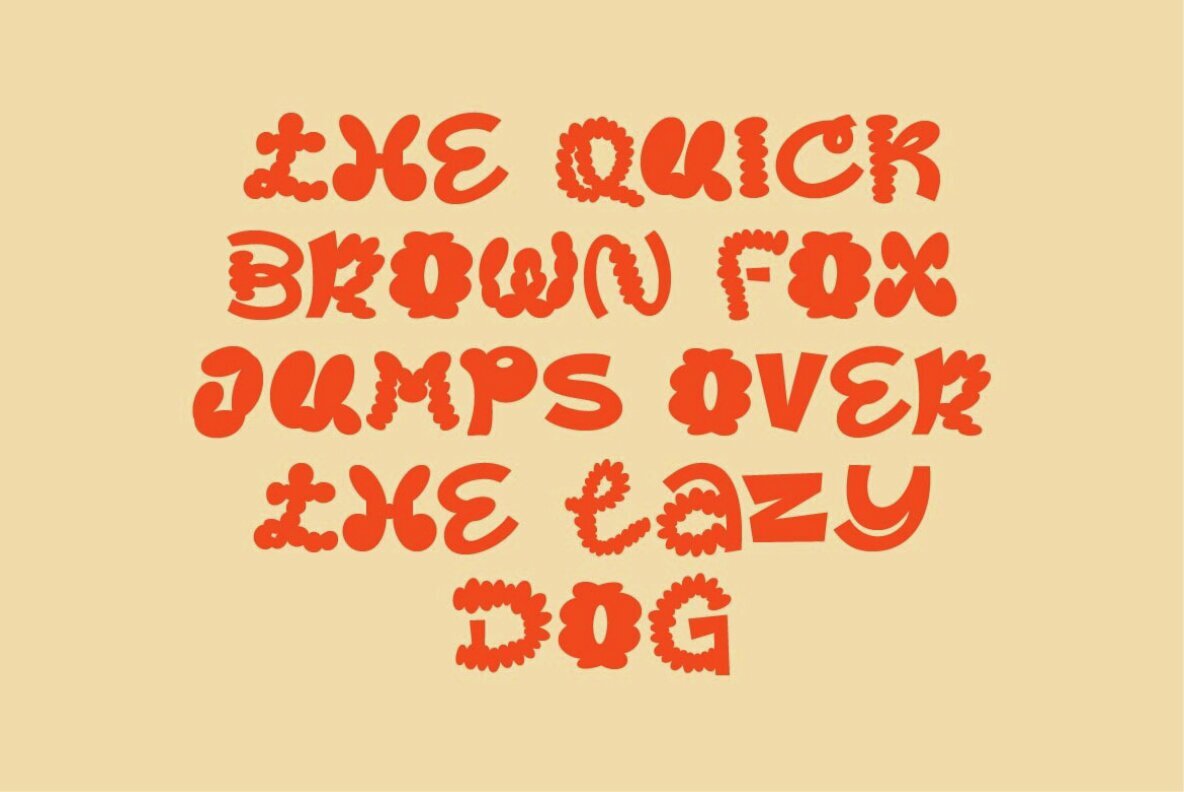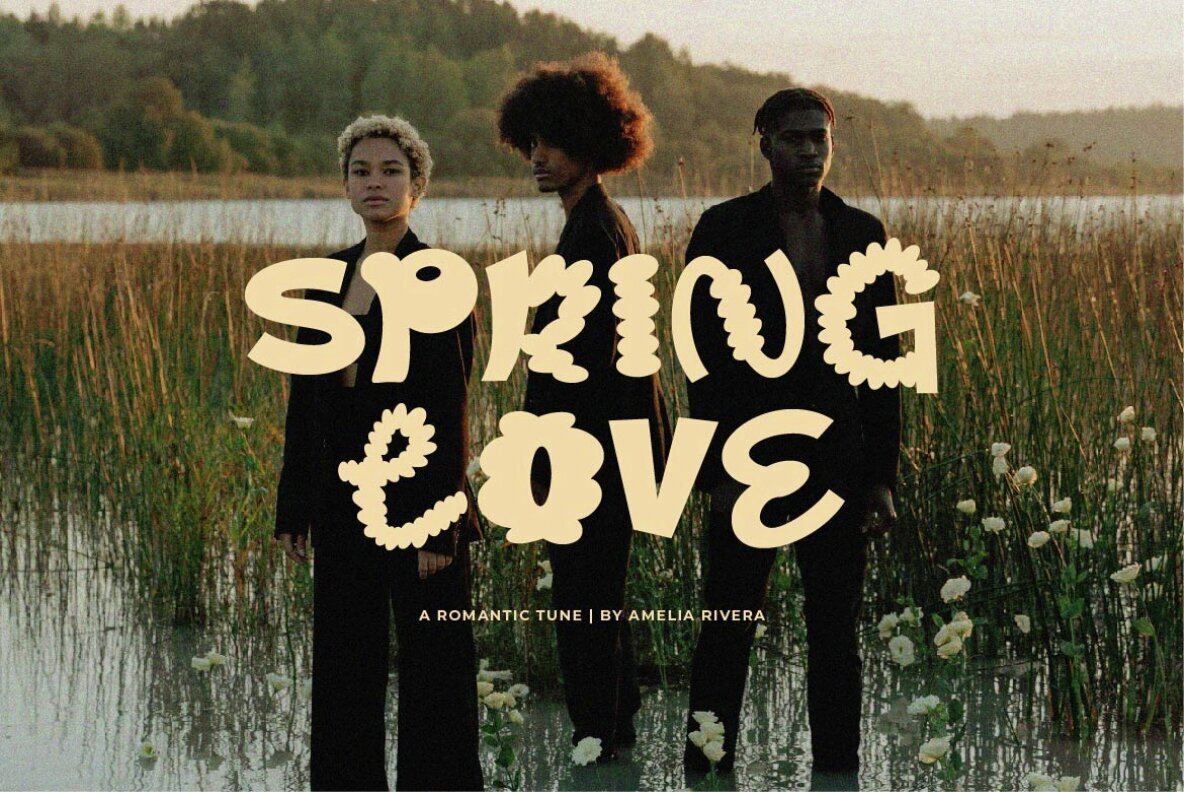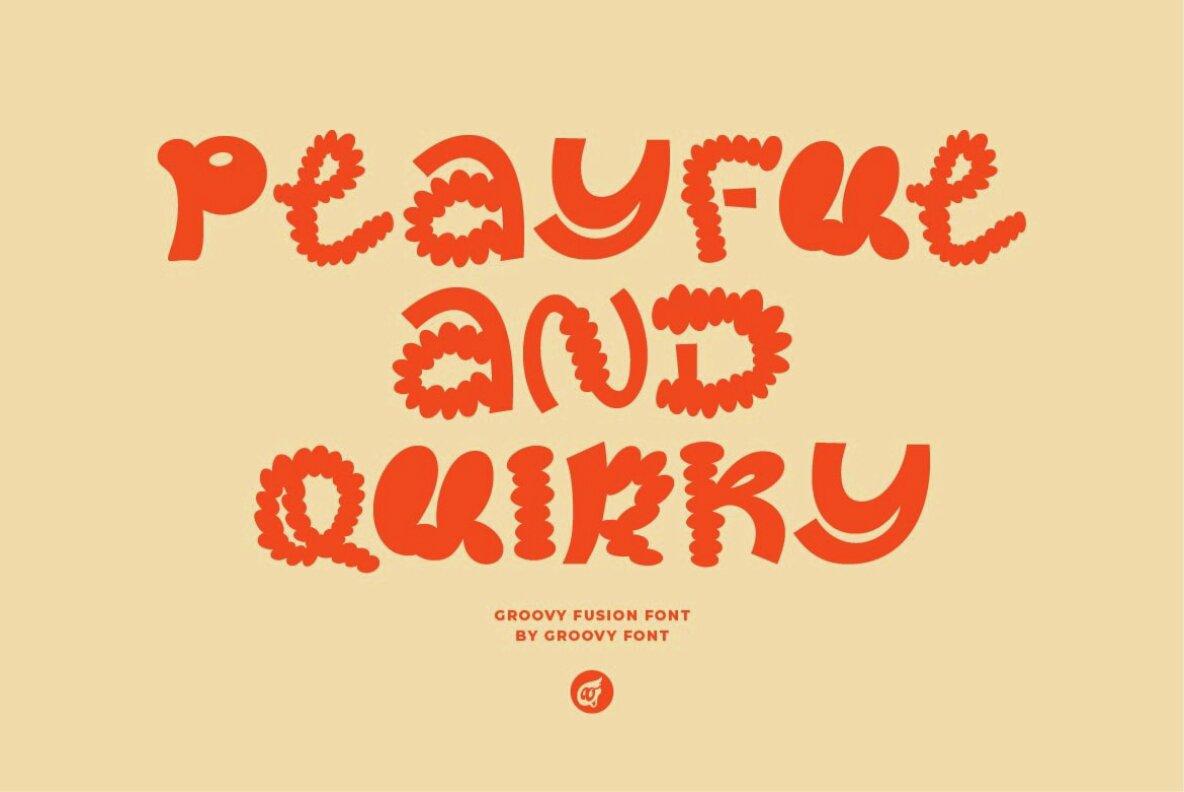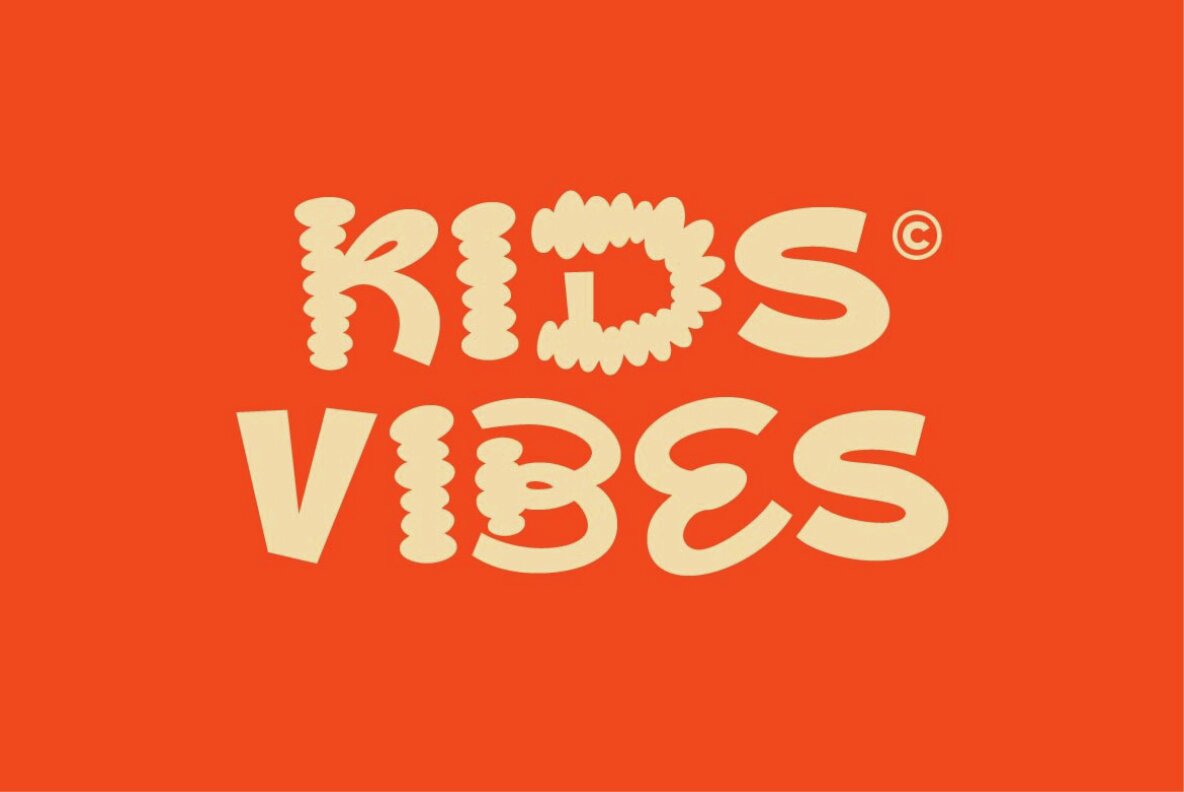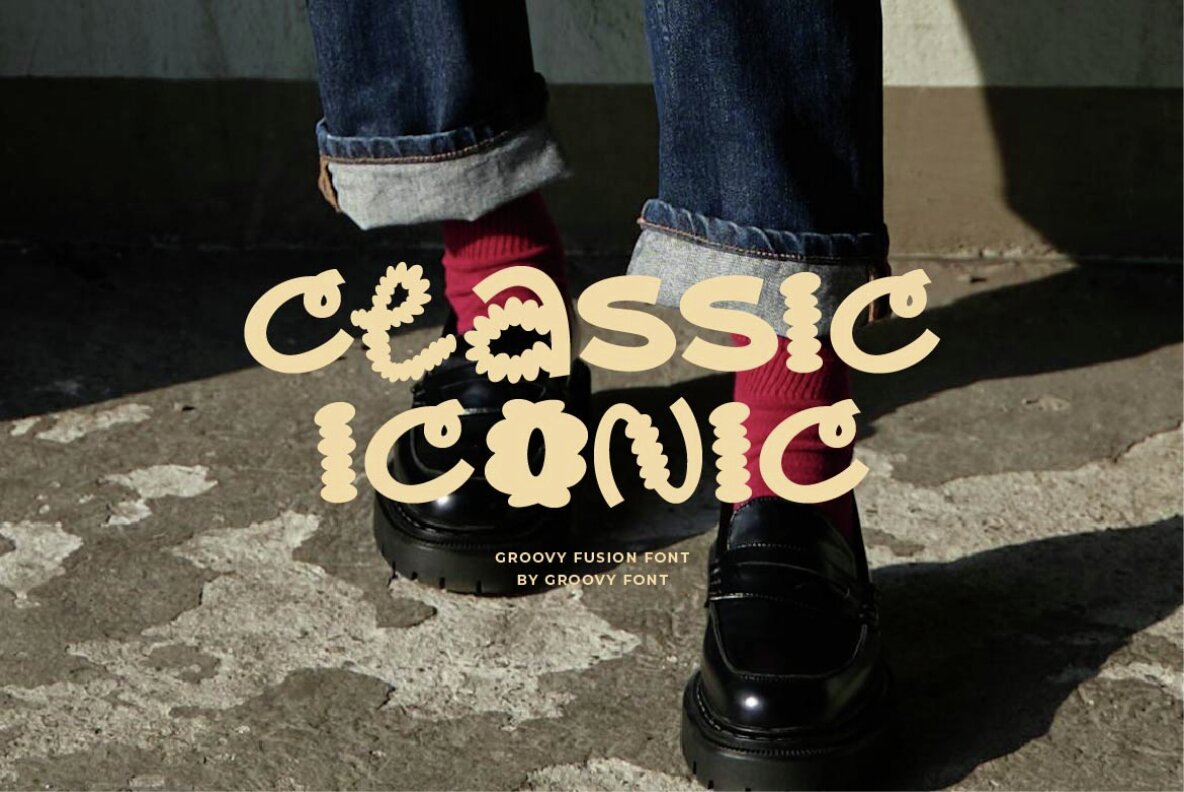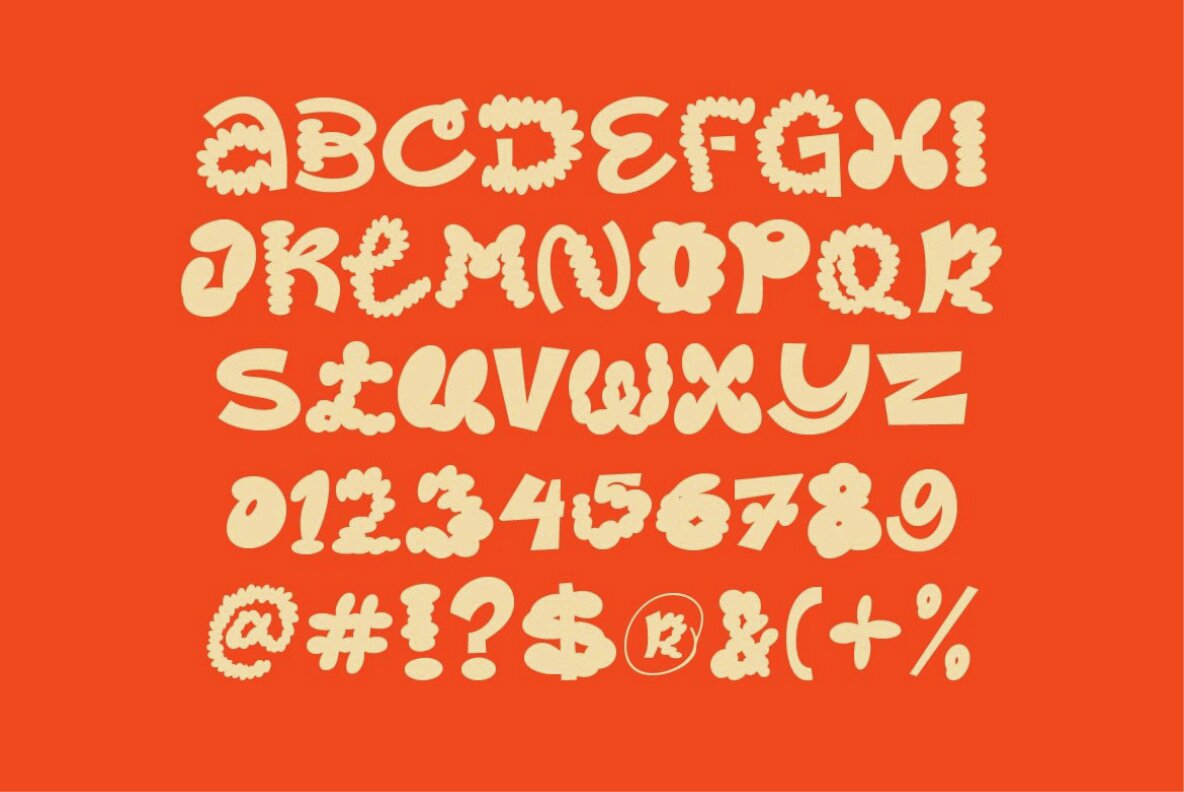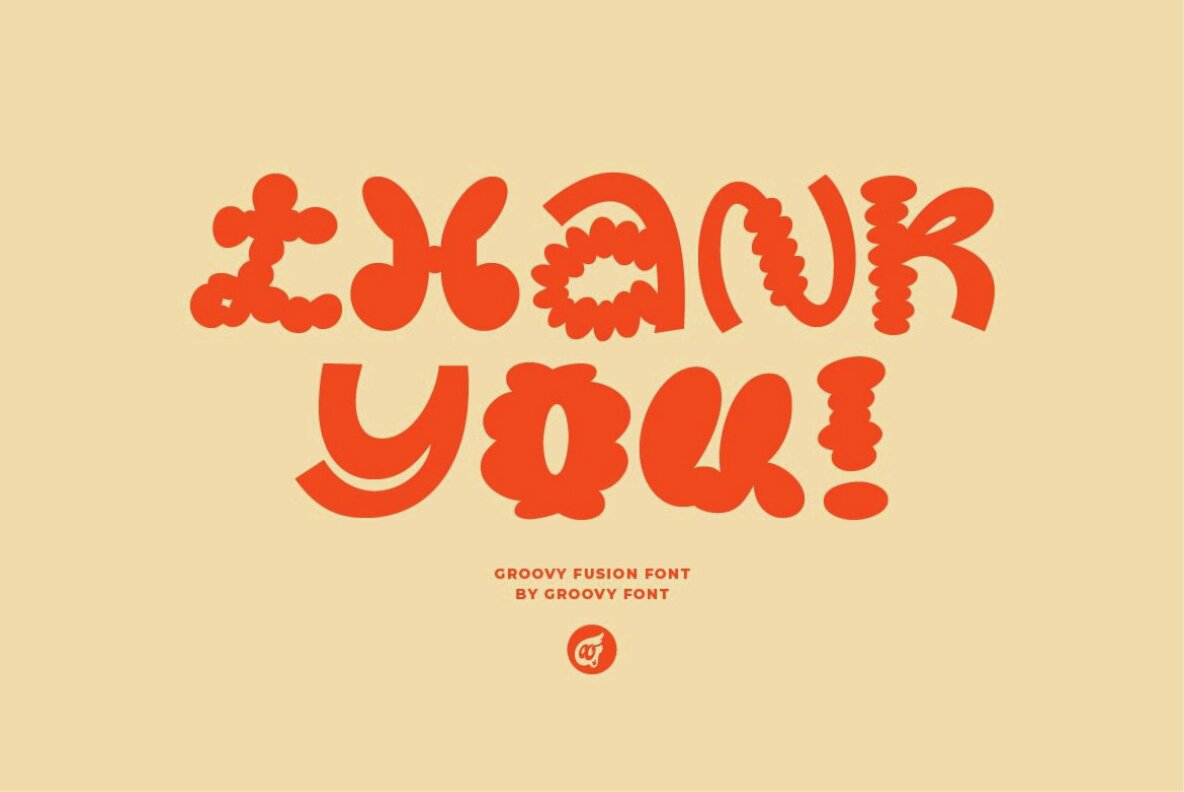
Groovy Fusion Font
Groovy Fusion is a lively display font that seamlessly integrates various letter styles to craft a distinctive and whimsical appearance. Featuring a blend of bold and curvy letters, this font is ideal for projects that need a creative and imaginative touch, particularly in children's designs. Whether it's a cheerful poster, colorful packaging, or a vibrant illustration, Groovy Fusion injects a playful and lively atmosphere into any project, making it an excellent choice for engaging a young audience.
Features include a full set of uppercase and lowercase characters, numerals, punctuation, and support for multilingual characters. Groovy Fusion provides versatility and fun, ensuring your designs stand out with a unique and spirited vibe.